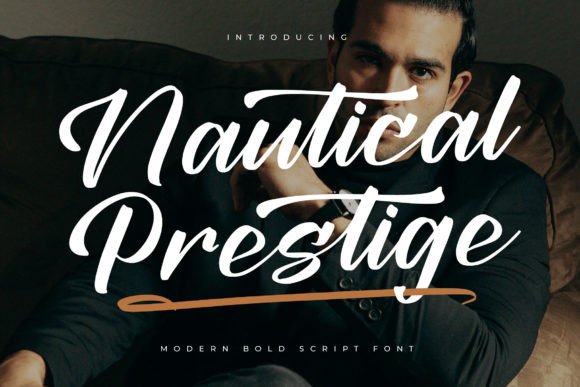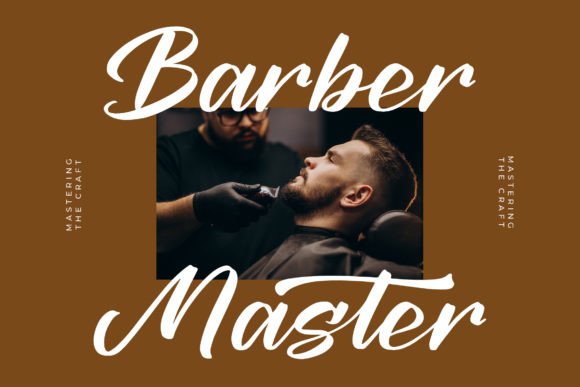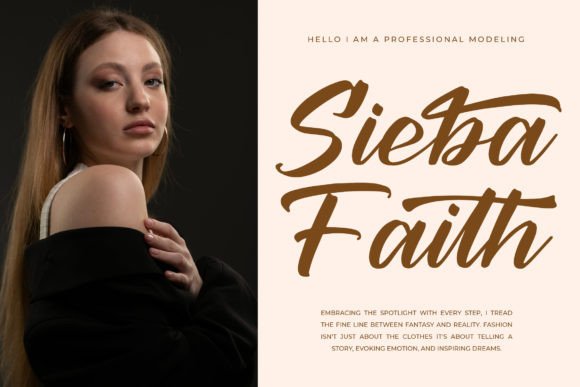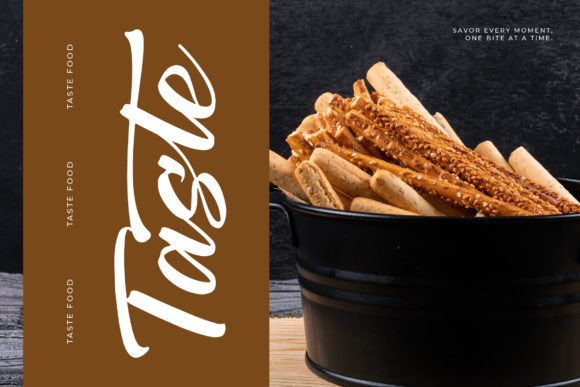
Nautical Prestige Font
About the Nautical Prestige Font
We are excited to introduce Nautical Prestige Font, a must-have typeface for any serious designer. Nautical Prestige is a dazzling script font that exudes elegance and charm. With its fluid strokes and intricate details, it captivates the eye and adds a touch of sophistication to any design project. Perfect for invitations, branding, and headlines, this font brings a sense of luxury and style to your creations.
Its elegant, slightly formal style makes Nautical Prestige ideal for projects requiring a touch of luxury, such as high-end branding, wedding invitations, or short-form editorial pieces. Headlines and logos benefit most from its distinctive character. However, its intricate details make it unsuitable for body text or UI elements where readability is paramount. Avoid using it for long paragraphs.
Pairing Nautical Prestige with a clean sans-serif like Lato or Open Sans provides a strong contrast, grounding its flourish. For a more traditional feel, a classic serif like Garamond or Georgia creates a balanced and sophisticated pairing. Consider a simple geometric sans-serif if a modern edge is desired.
The font projects a refined, sophisticated personality, suggesting luxury and exclusivity. Brands aiming for a classic, timeless aesthetic, or those focused on premium products or services, will find it highly effective.